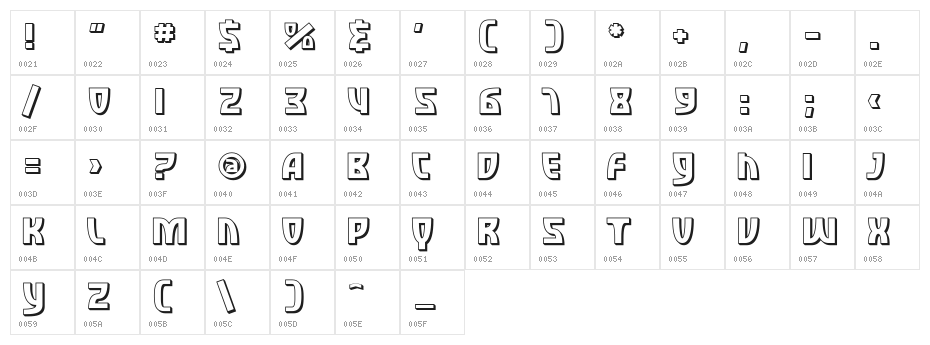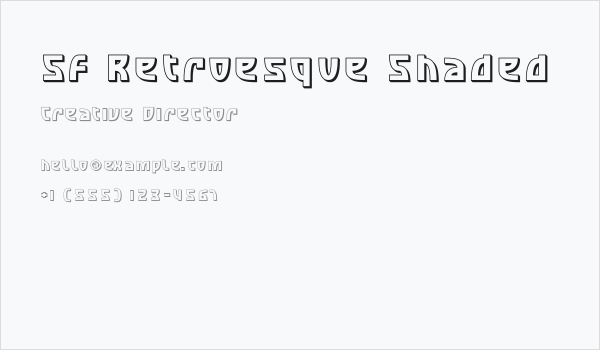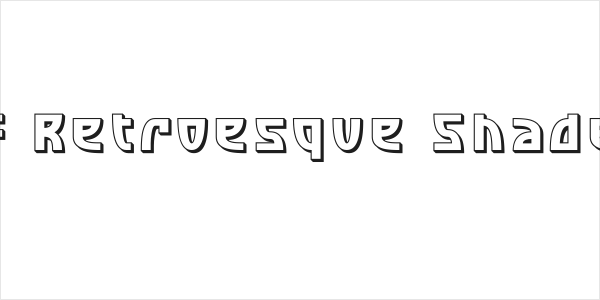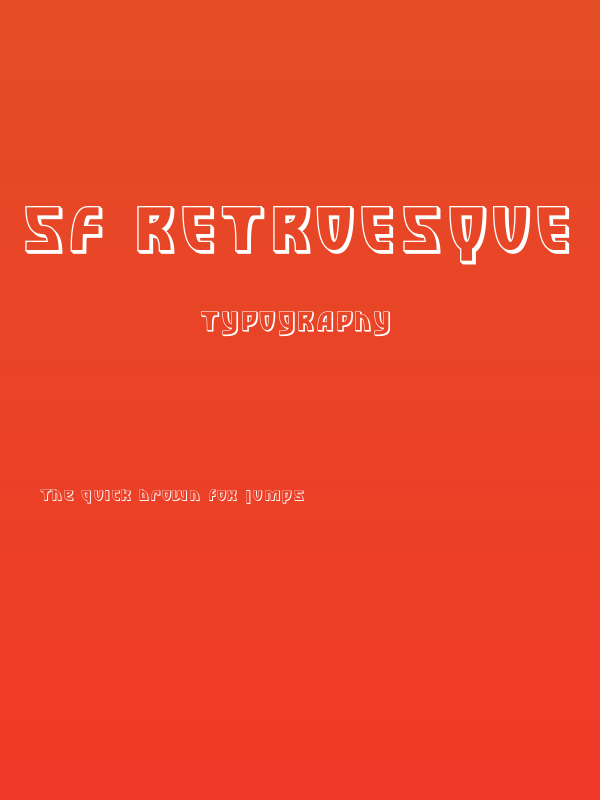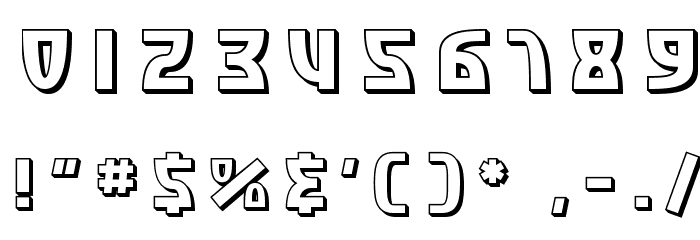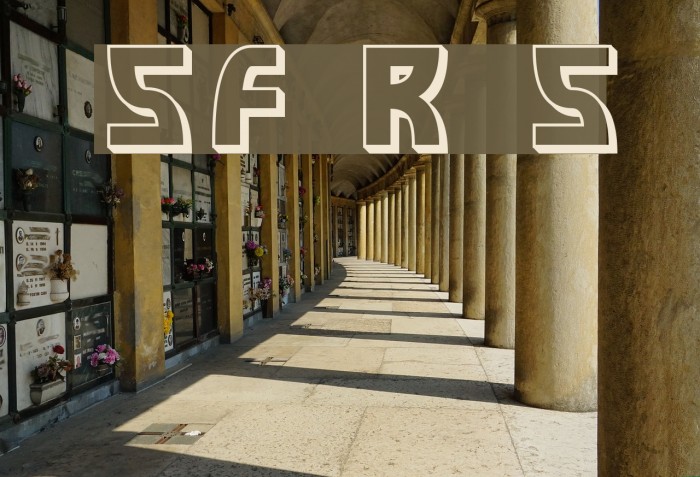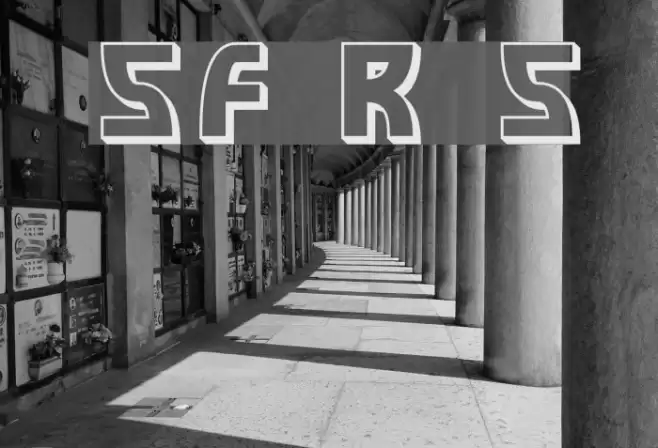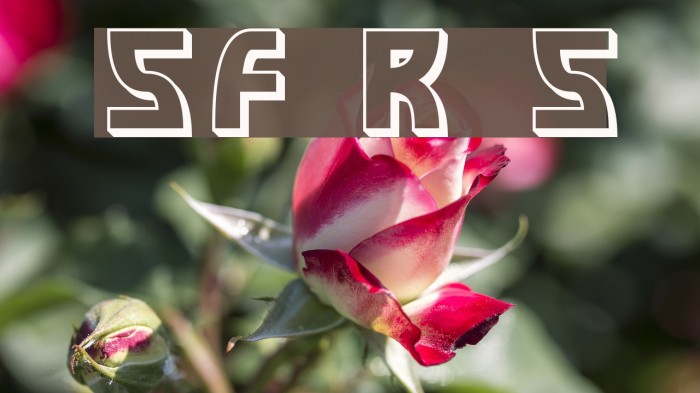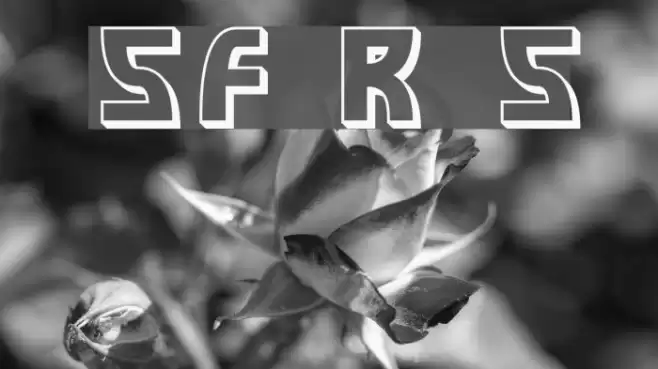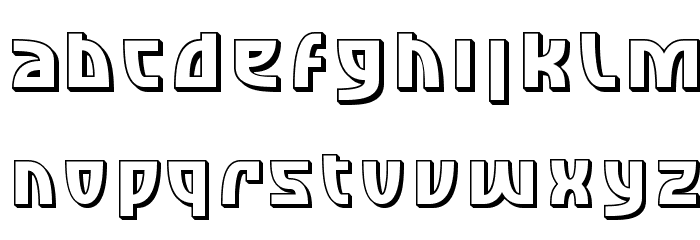
SF Retroesque Shaded Font
SF Retroesque Shaded Description
This font features a bold, retro-inspired design with a shaded effect that gives it a three-dimensional appearance. The characters are blocky and geometric, with a consistent thickness throughout, creating a strong visual impact. The uppercase and lowercase letters maintain a uniform style, while the numerals and special characters complement the overall aesthetic. The font's unique shading adds depth and a playful touch, making it stand out in any design. Its distinct style is reminiscent of vintage signage and retro-futuristic themes, making it ideal for projects that aim to capture a nostalgic yet modern feel.
| Overall Style | Retro, Vintage |
| Proposed Projects | Ideal for retro-themed posters, vintage branding, eye-catching headlines, and creative logos. |